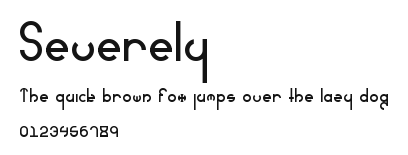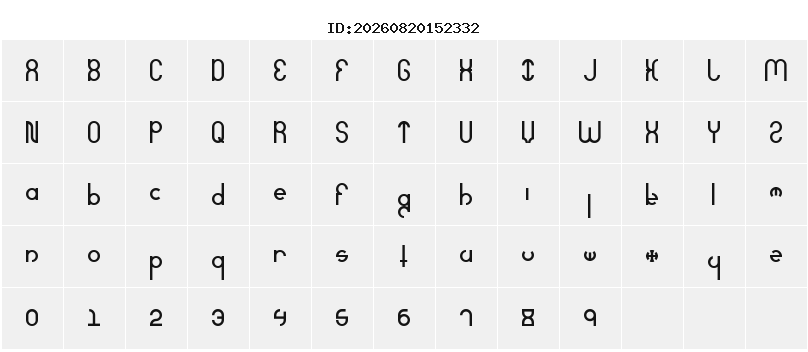
• Font Name: Severely
• Font Style: Extreme
• Font ID: Macromedia Fontographer 4.1 Severely Extreme
• Full Font Name: Severely Extreme
• Version: Macromedia Fontographer 4.1 11.04.99
• PostScript Name: SeverelyExtreme
• Character Count: 184
About Severely.ttf
Severely.ttf is a modern, elegant sans-serif font designed for ultimate readability and visual harmony. Perfect for branding, headlines, web design, and print materials.